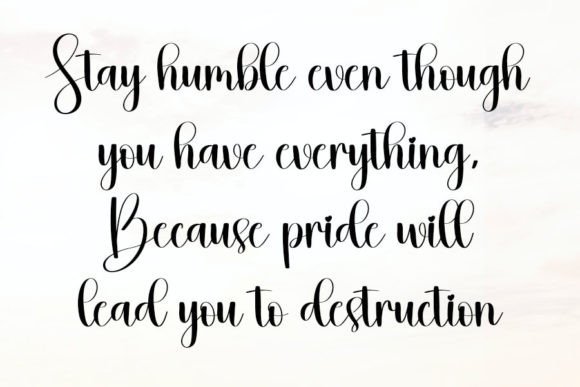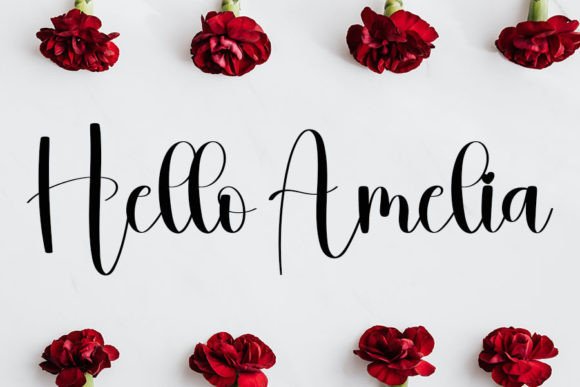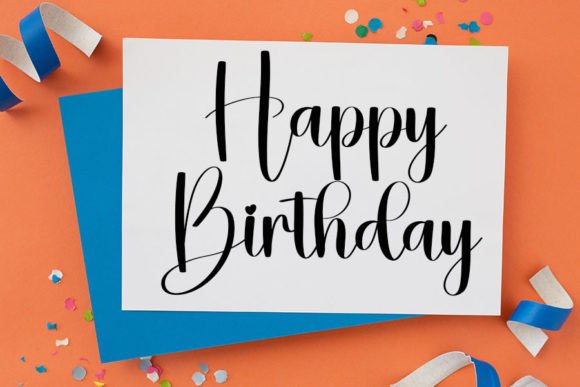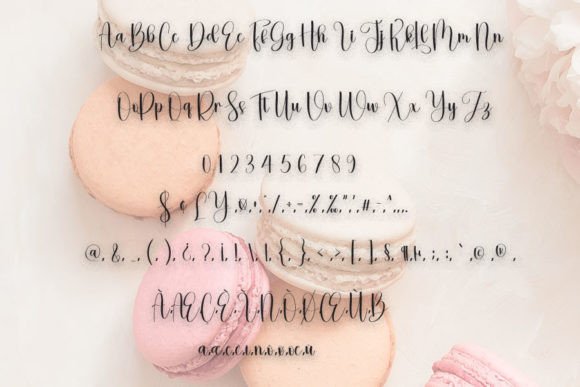
Unleash Your Creativity with Biscuit Font
Do you remember the feeling of sitting at your desk, surrounded by paper scraps, glue, and an endless supply of imagination? For many creatives, those moments are the spark that sets off a project, igniting a passion that drives us to bring our ideas to life. Whether you’re a seasoned designer or a crafty enthusiast, there’s something special about adding a personal touch to your work.
That’s where Biscuit Font comes in – a fun and friendly handwritten font that’s perfect for adding a touch of warmth to your digital designs, crafts, and presentations. With its playful charm, Biscuit Font is an invaluable tool for designers looking to add a personal touch to their work. From greeting cards to digital art, this font has the potential to become your go-to companion for any creative project.
Biscuit Font Key Features
- Font Family: Biscuit is a script font designed for elegant and sophisticated typography.
- Font Size: Biscuit is available in various font sizes, including small caps, to cater to different design requirements.
- Unique Characteristics: Biscuit’s distinctive letterforms, subtle flourishes, and elegant connections create a charming and sophisticated look.
- Language Support: Supports a wide range of languages, including Latin, Greek, and Cyrillic scripts, making it a versatile font for global designs.
Biscuit Font Review
As a designer, I was initially drawn to the Biscuit Font due to its playful, hand-drawn aesthetic. ✨ I appreciate how it adds a touch of whimsy to any project, making it perfect for creative and fun designs. The font’s soft, rounded edges and imperfect imperfections give it a unique charm that’s hard to resist.
One of the things that stands out about Biscuit is its wide range of styles and weights, making it highly customizable. ✨ You can easily switch between different versions to achieve the desired look and feel for your project. The font also includes a variety of ligatures and swashes, which add an extra layer of personality to your text.
- ⚠️ Limited legibility: While the font is beautiful, it can be difficult to read in smaller sizes or at a distance. This might make it less suitable for body text or titles that require clear visibility.
Overall, I think Biscuit Font is a great choice for designers looking to add some personality to their projects. However, it’s essential to consider the limitations and use it judiciously to ensure the best results.
Use the Biscuit font for playful and whimsical designs, such as children’s books, party invitations, and social media graphics.
Experiment with different font sizes and styles to create a unique and eye-catching look.
Pair the Biscuit font with other playful and bold fonts to create a fun and energetic design.